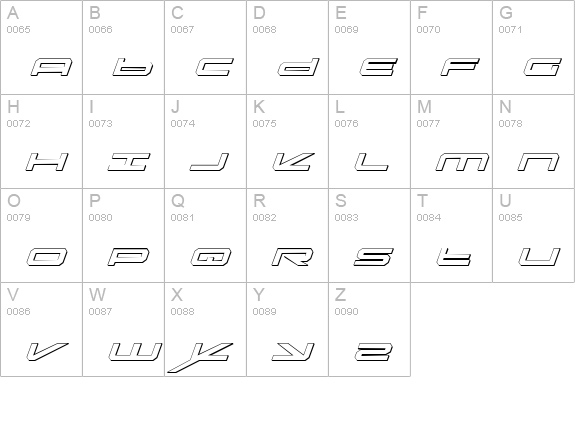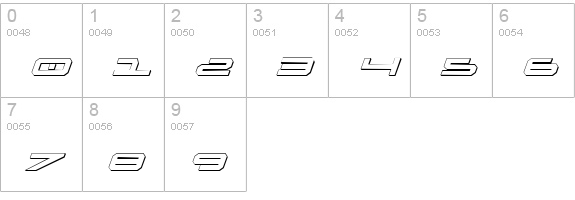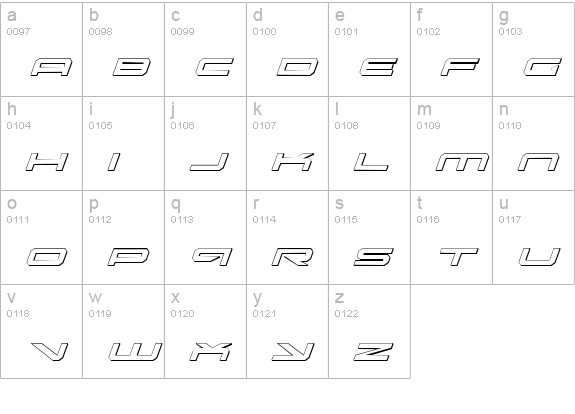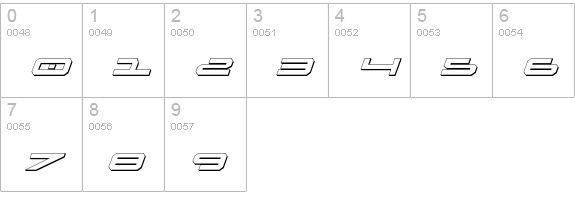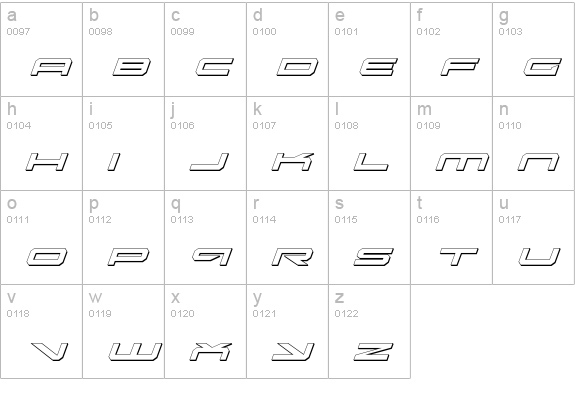
Oramac Shadow Italic is a distinctive, italic variant in the Oramac typeface family \xE2\x80\x94 well suited to design and typography projects.
Oramac Shadow Italic font is a striking and elegant typeface that exudes a sense of mystery and sophistication. Its unique italic design adds a touch of flair and drama to any text or design project. The slanted, shadowed letters create a sense of depth and dimension, making this font perfect for adding a touch of intrigue to your designs. What sets Oramac Shadow Italic font apart is not just its visual appeal, but also the fact that it is available for free download at FontsMarket.com. This means that you can easily access and use this stunning font in your projects without any cost. Whether you are designing a poster, creating a logo, or adding text to a website, Oramac Shadow Italic font is sure to make a statement and leave a lasting impression. Download it now and elevate your designs with this captivating typeface.